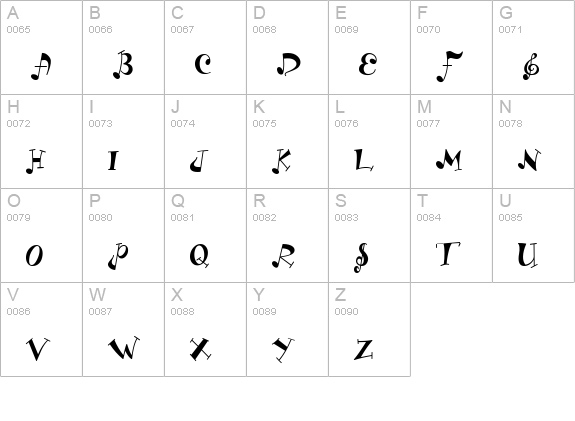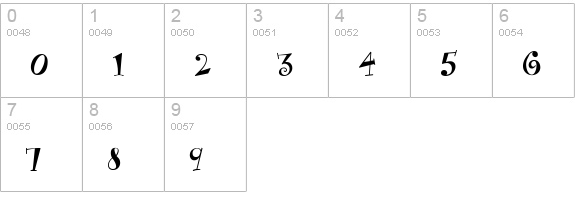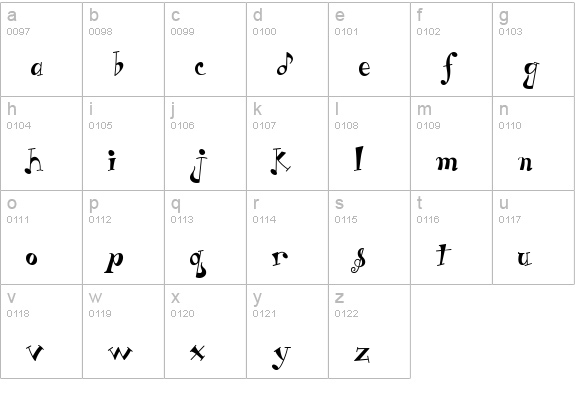
LD Music Font Details
LD Music font is a delightful and versatile typeface that adds a touch of harmony and rhythm to any design project. With its intricate musical-inspired letterforms, this font brings an elegant and sophisticated aesthetic to compositions related to music, entertainment, and the performing arts. Crafted with meticulous attention to detail, LD Music font captures the essence of musical notes and instruments, creating a visual symphony that resonates with creativity and expression. Each character is carefully designed to reflect the grace and fluidity of music, making it a perfect choice for album covers, concert posters, music-themed websites, and more. What makes LD Music font even more remarkable is that it is completely free! This means that you can enhance your designs with this beautiful typeface without any cost. You can easily download LD Music font from FontsMarket.com, a trusted source for high-quality fonts. By offering this font for free, we aim to make it accessible to designers, musicians, and music enthusiasts alike, allowing them to create captivating visuals that echo the power and emotion of music. Whether you are a professional graphic designer or simply a music lover looking to add a touch of melody to your projects, LD Music font is an excellent choice. Its unique design, combined with its free availability, makes it a must-have in your font collection. So why wait? Visit FontsMarket.com today and get ready to harmonize your designs with the enchanting beauty of LD Music font.